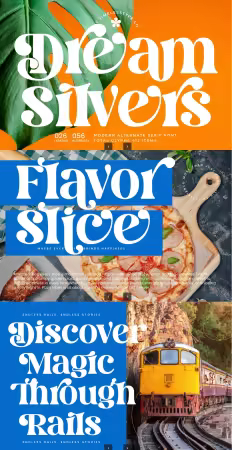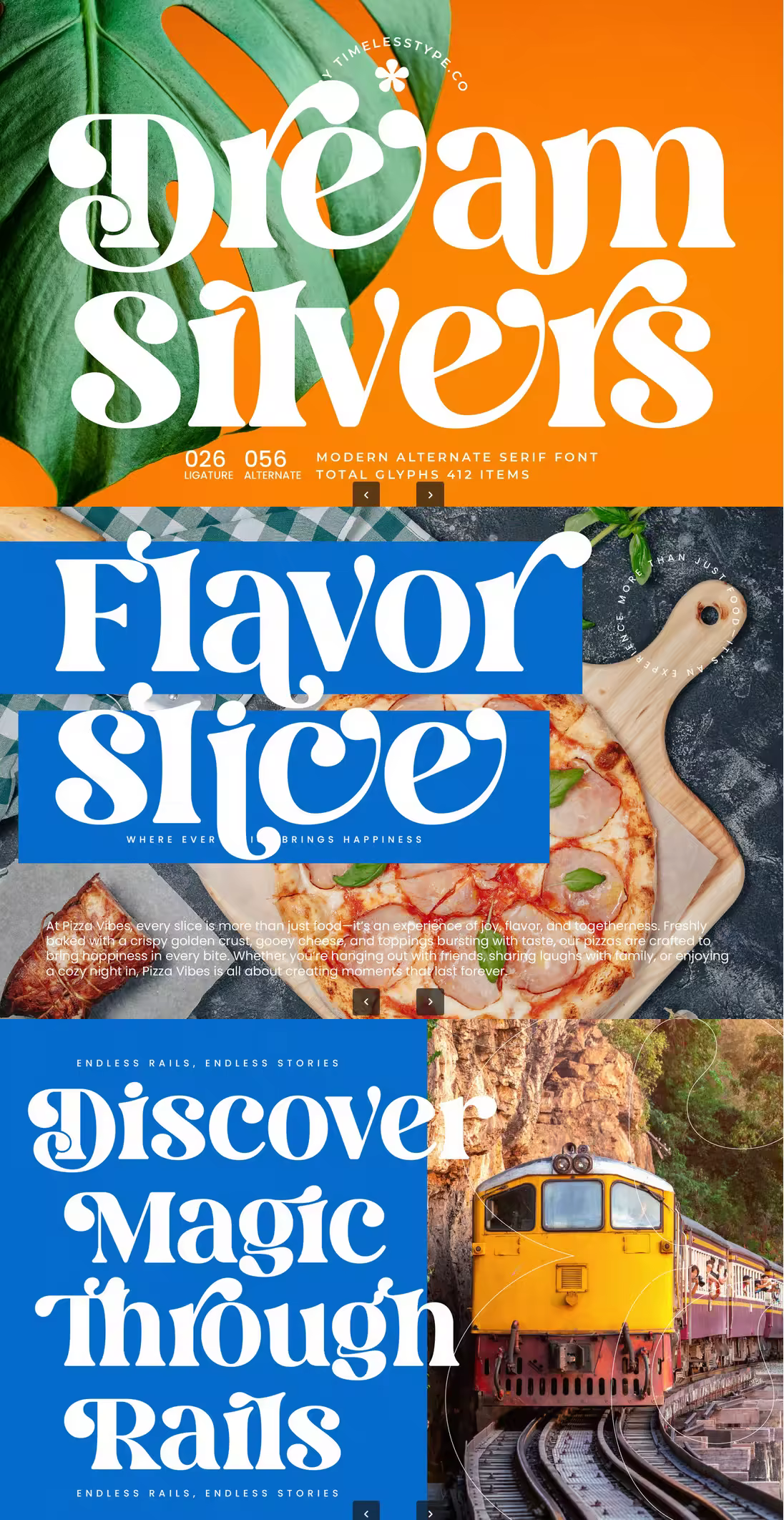
Dream Silvers is a modern alternate serif display font with bold sculpted strokes, expressive high-contrast curves, and ornamental terminals that bring an elevated artistic presence to branding, editorial layouts, packaging, and high-end visual identities; supported by 26 ligatures and 56 alternates, it gives designers the flexibility to craft standout headlines with a refined, contemporary flair.
Ligature
Uppercase and lowercase
Numbering and Punctuation